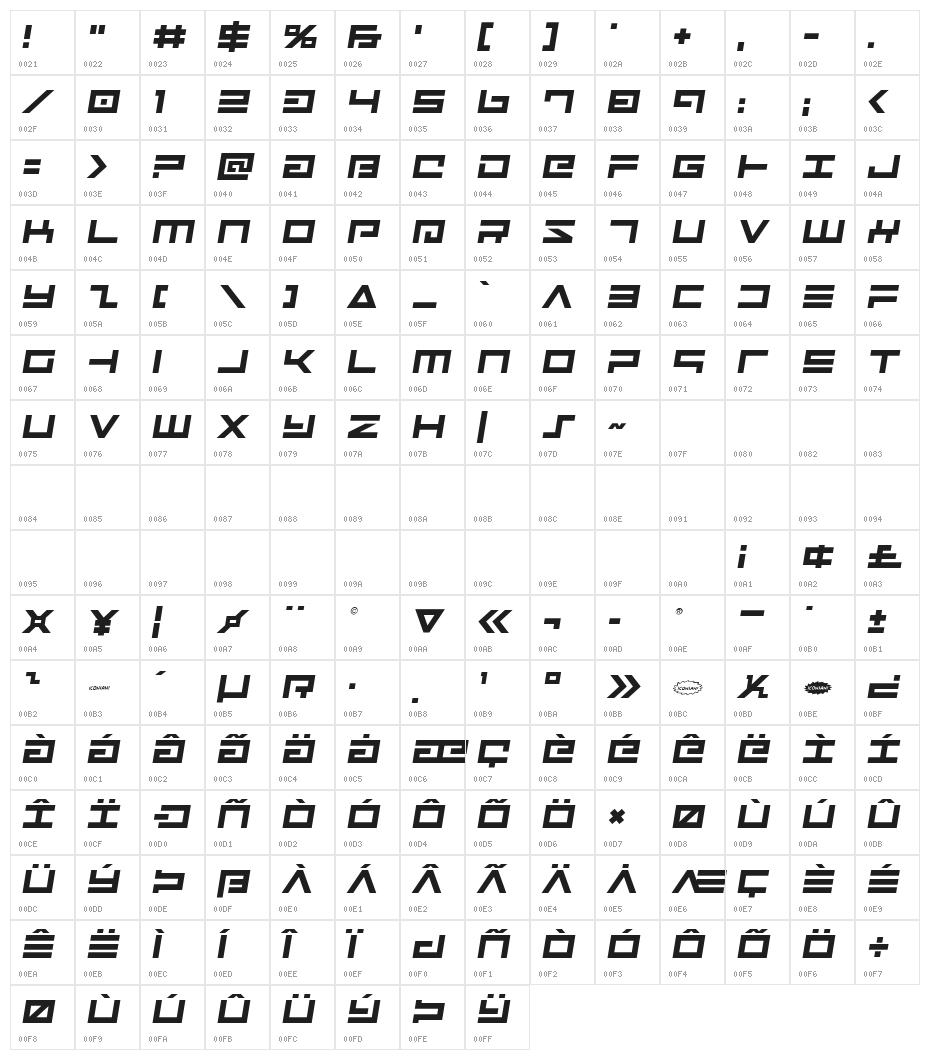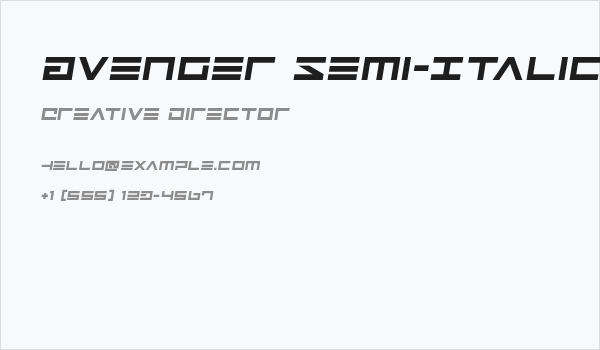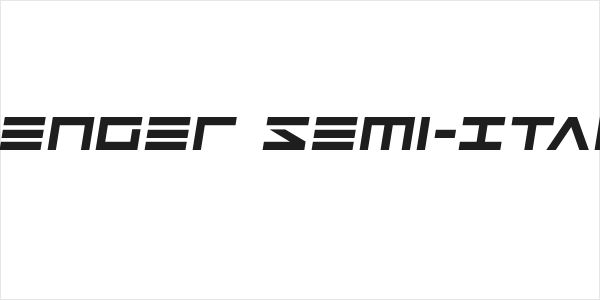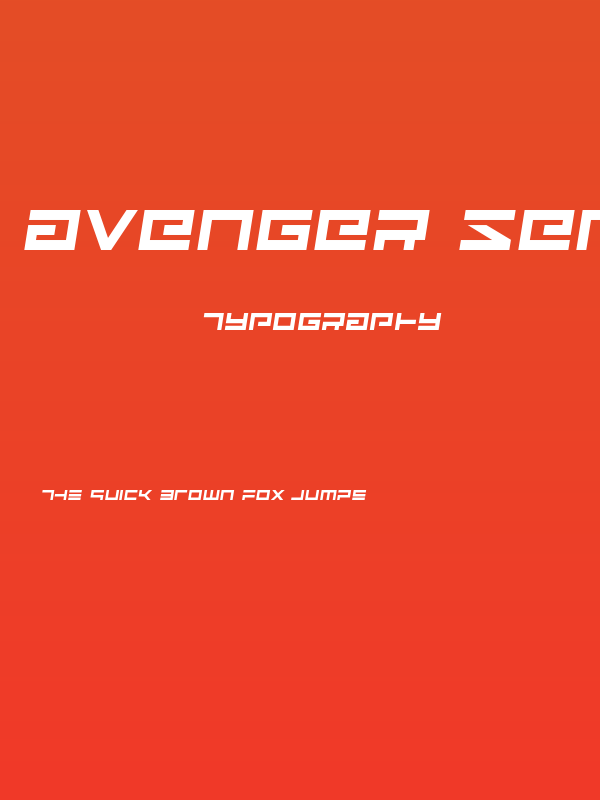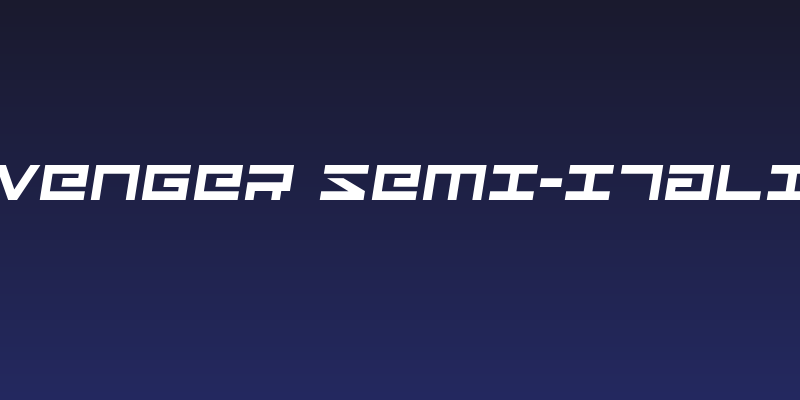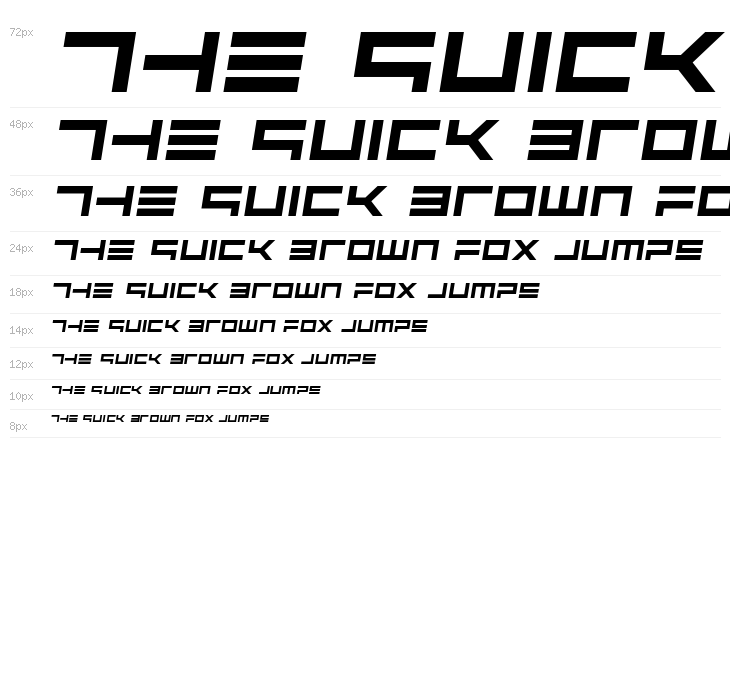
Avenger Semi-Italic Font
Avenger Semi-Italic Description
This font features a bold and futuristic design with angular, geometric shapes that give it a dynamic and energetic feel. The characters are slightly italicized, adding a sense of motion and speed. The uppercase and lowercase letters maintain a consistent style, with sharp edges and a uniform thickness throughout. Numbers and special characters are designed to match the overall aesthetic, making them ideal for attention-grabbing headlines or logos. The font's unique style is reminiscent of science fiction and modern technology themes.
Overall StyleFuturistic, Dynamic
Proposed ProjectsIdeal for sci-fi themed projects, tech company branding, video game titles, or futuristic posters.